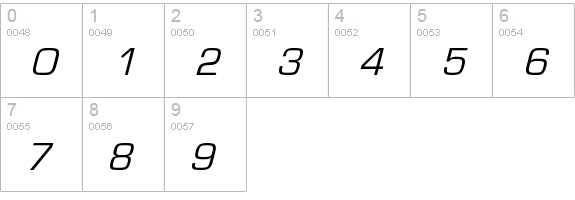
EurostileObl-Normal Font Details
EurostileObl-Normal is the standard, neutral variant in the EurostileObl typeface family \xE2\x80\x94 well suited to general body text, paragraphs, and standard typographic work.
EurostileObl-Normal is a modern and sleek font that exudes a sense of professionalism and sophistication. Its bold and geometric design makes it perfect for a wide range of design projects, from branding to editorial design. The clean lines and angled letterforms give EurostileObl-Normal a futuristic and tech-savvy look that is sure to make any text stand out. The best part about EurostileObl-Normal is that it is available for free download at FontsMarket.com. This means that you can easily access this stylish and versatile font to elevate your designs without any cost. Whether you are working on a logo, website, or print materials, EurostileObl-Normal is a great choice for adding a touch of modernity and sophistication. Download EurostileObl-Normal for free today at FontsMarket.com and start incorporating this eye-catching font into your design projects to make a lasting impression.